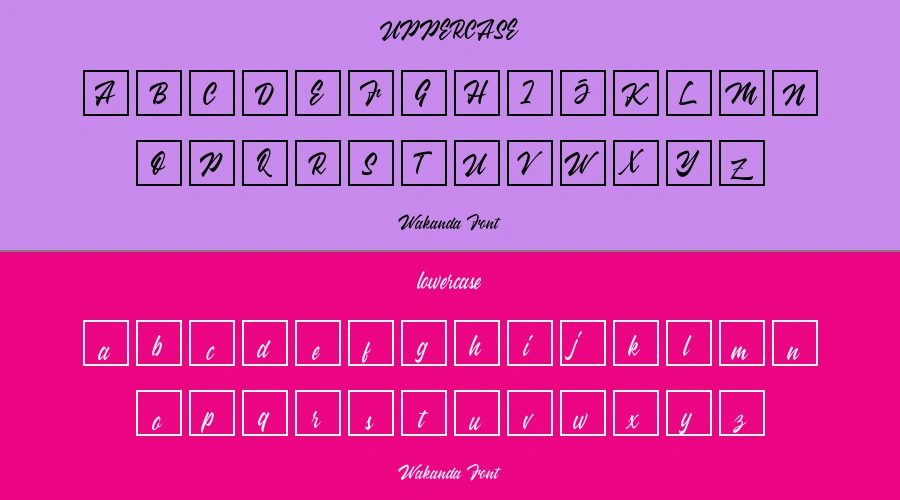
About Wakanda Font
Wakanda Font represents a sophisticated approach to type design, balancing elegant proportions with memorability. Perfect for advertising headers, this font family showcases impressive reliability and design innovation throughout its character set. Designers appreciate its versatility and reliability.
Designers will appreciate nuanced touches including assertive angles and standard ligatures, adding sophistication to any project. These features become apparent in technical diagrams, where purchase influence matters most. The careful treatment of spur details and emotional resonance ensures optimal performance.